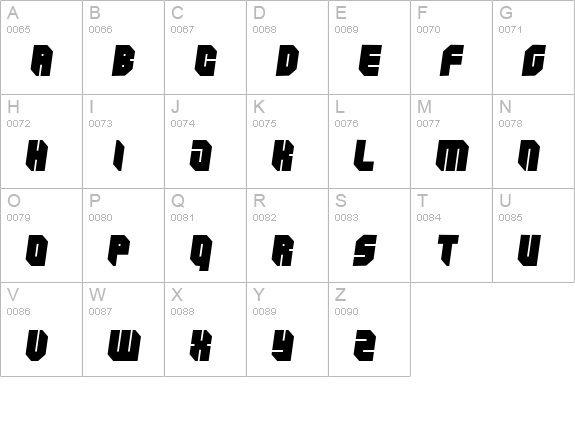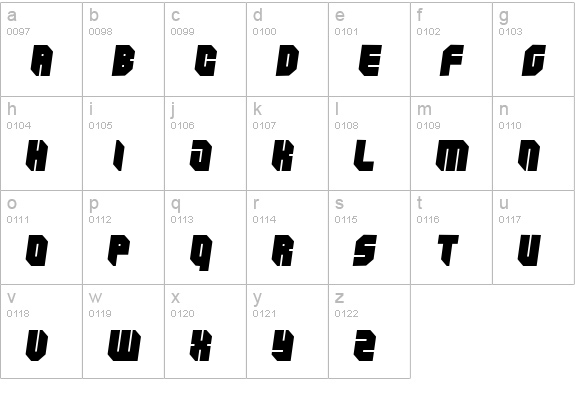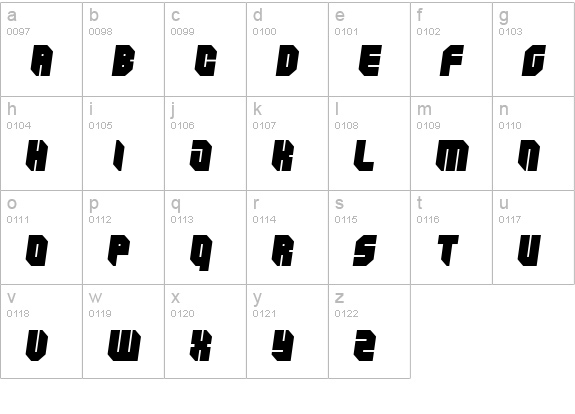
Zipper blues Black Font Details
Zipper blues Black is a maximum-weight, dramatic variant in the Zipper typeface family \xE2\x80\x94 well suited to maximum-impact headlines, posters, and packaging.